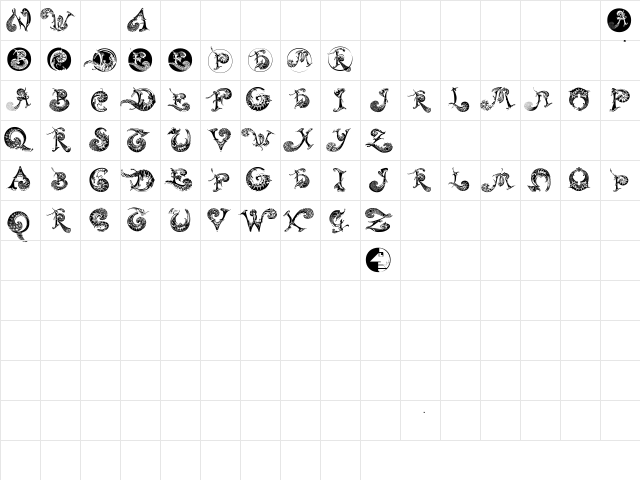
SchnoerkelCaps Regular Free Font
SchnoerkelCaps Regular
Design Context for SchnoerkelCaps
SchnoerkelCaps is a composed and adaptable typeface that performs quietly and consistently across a wide range of design contexts.